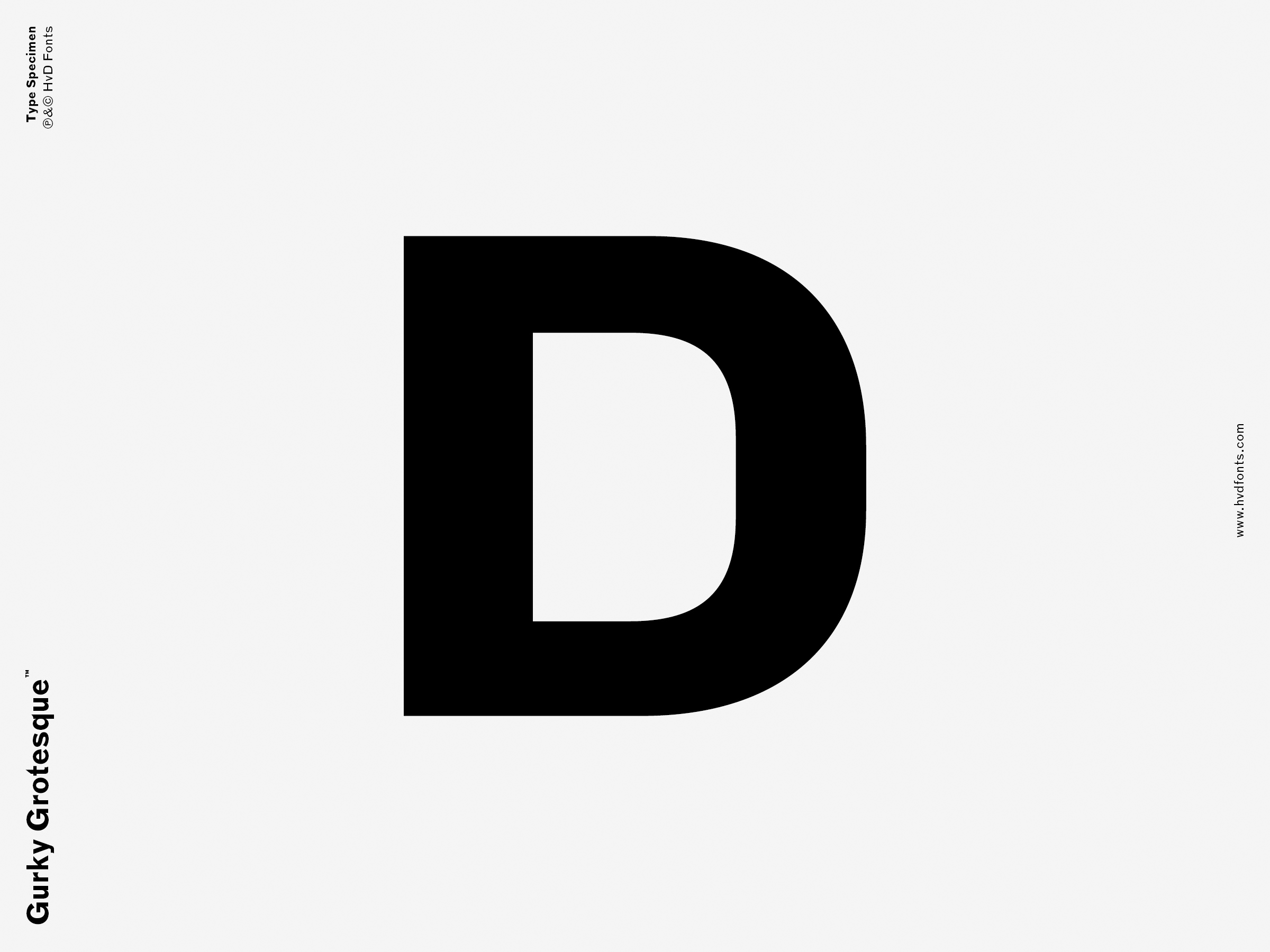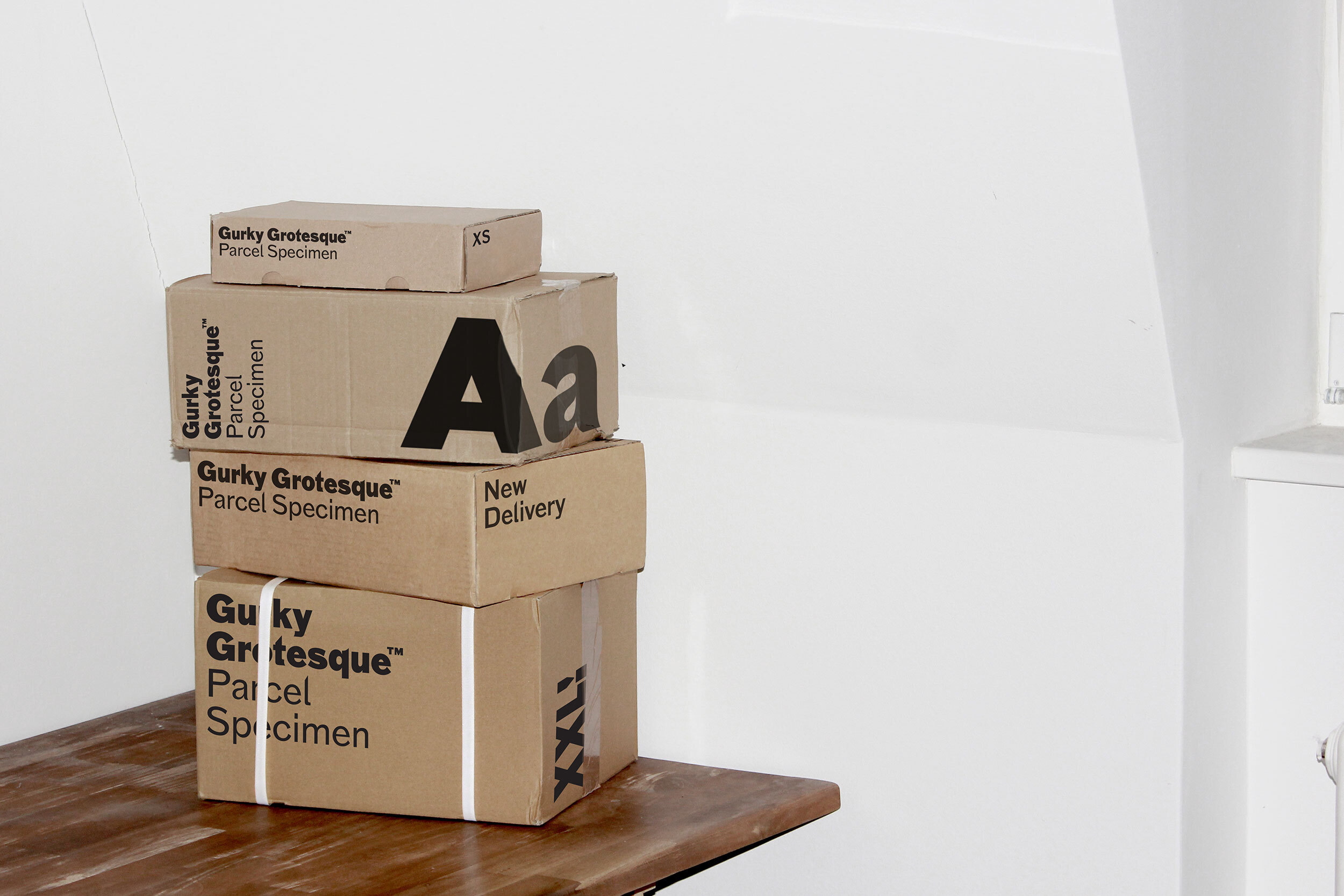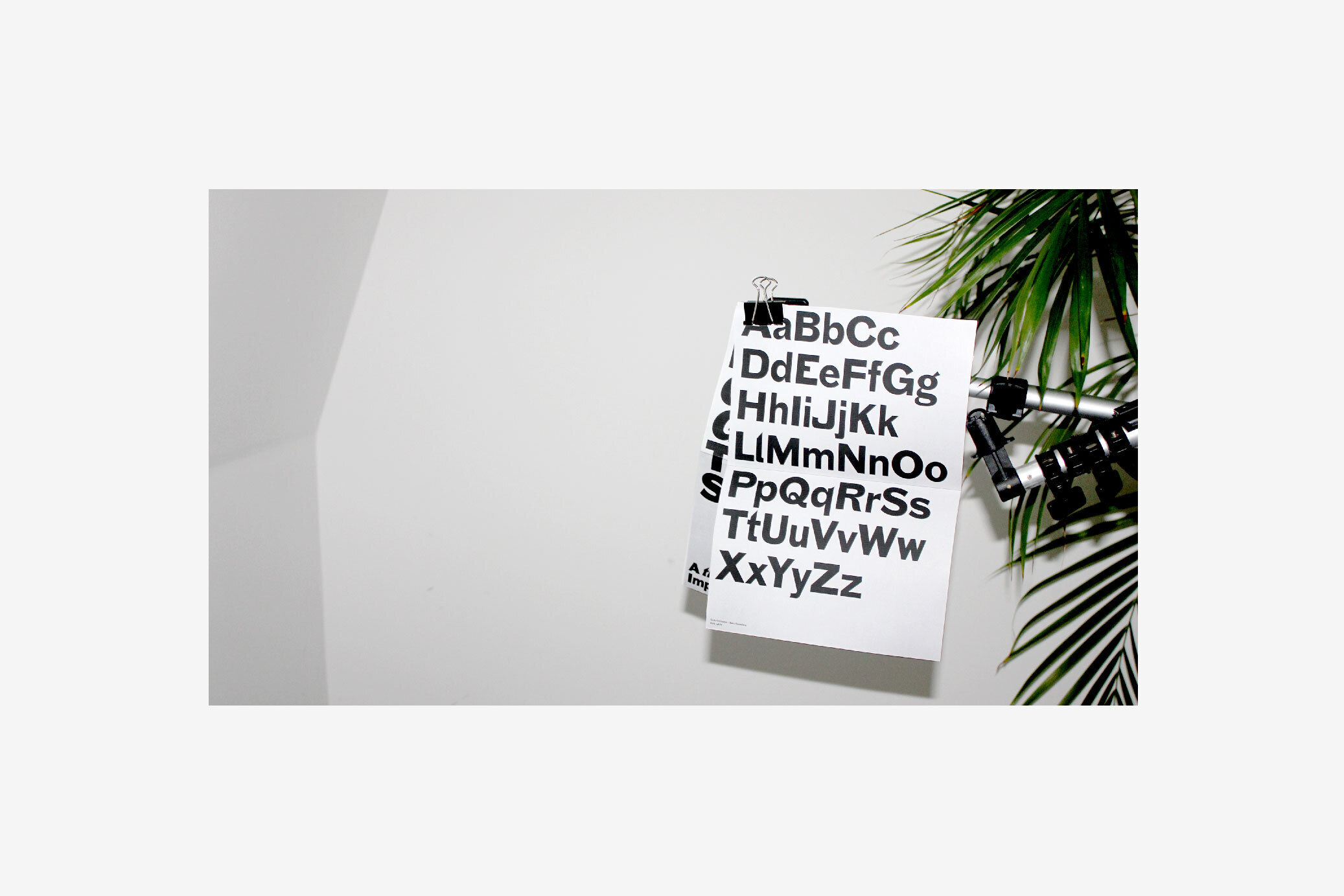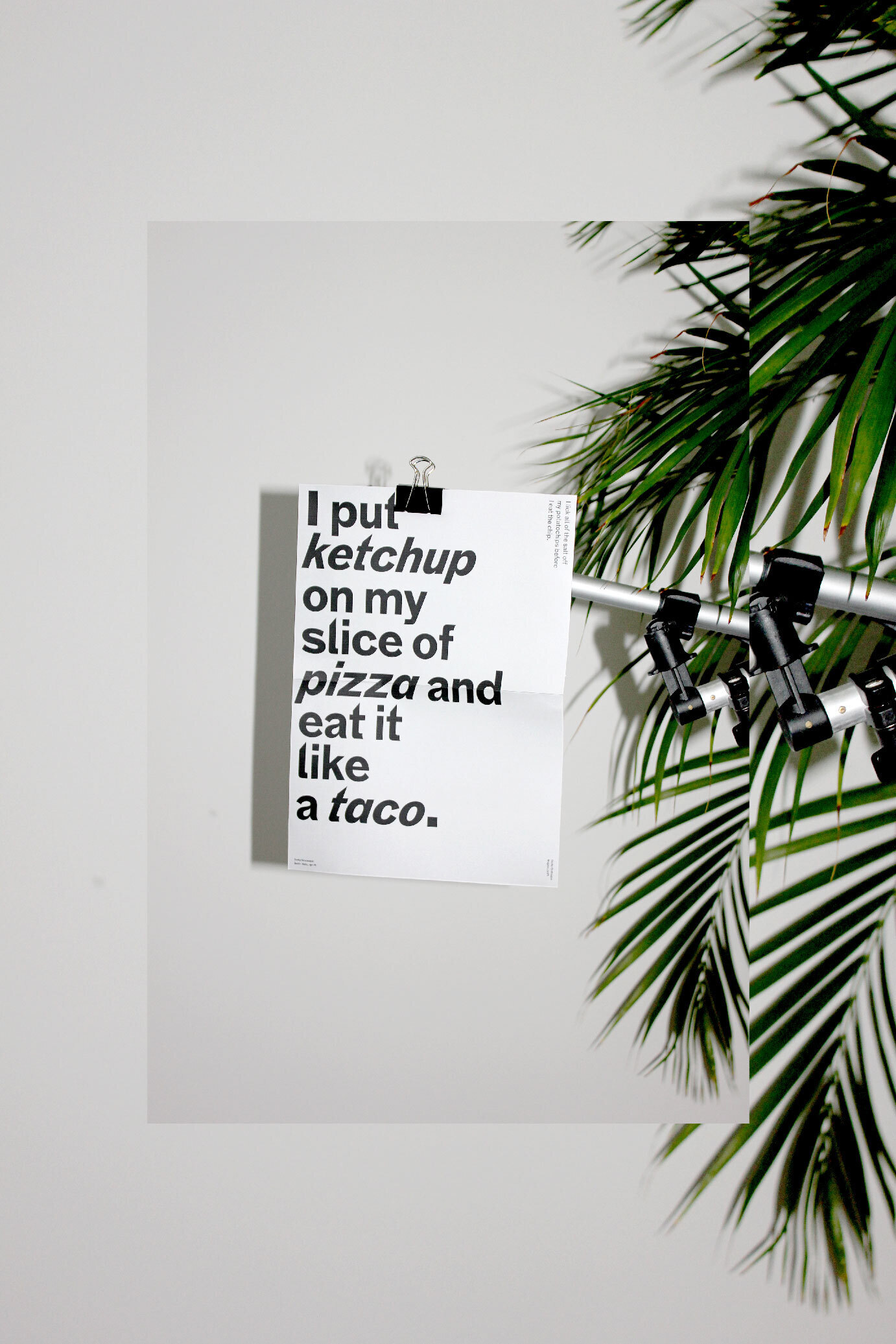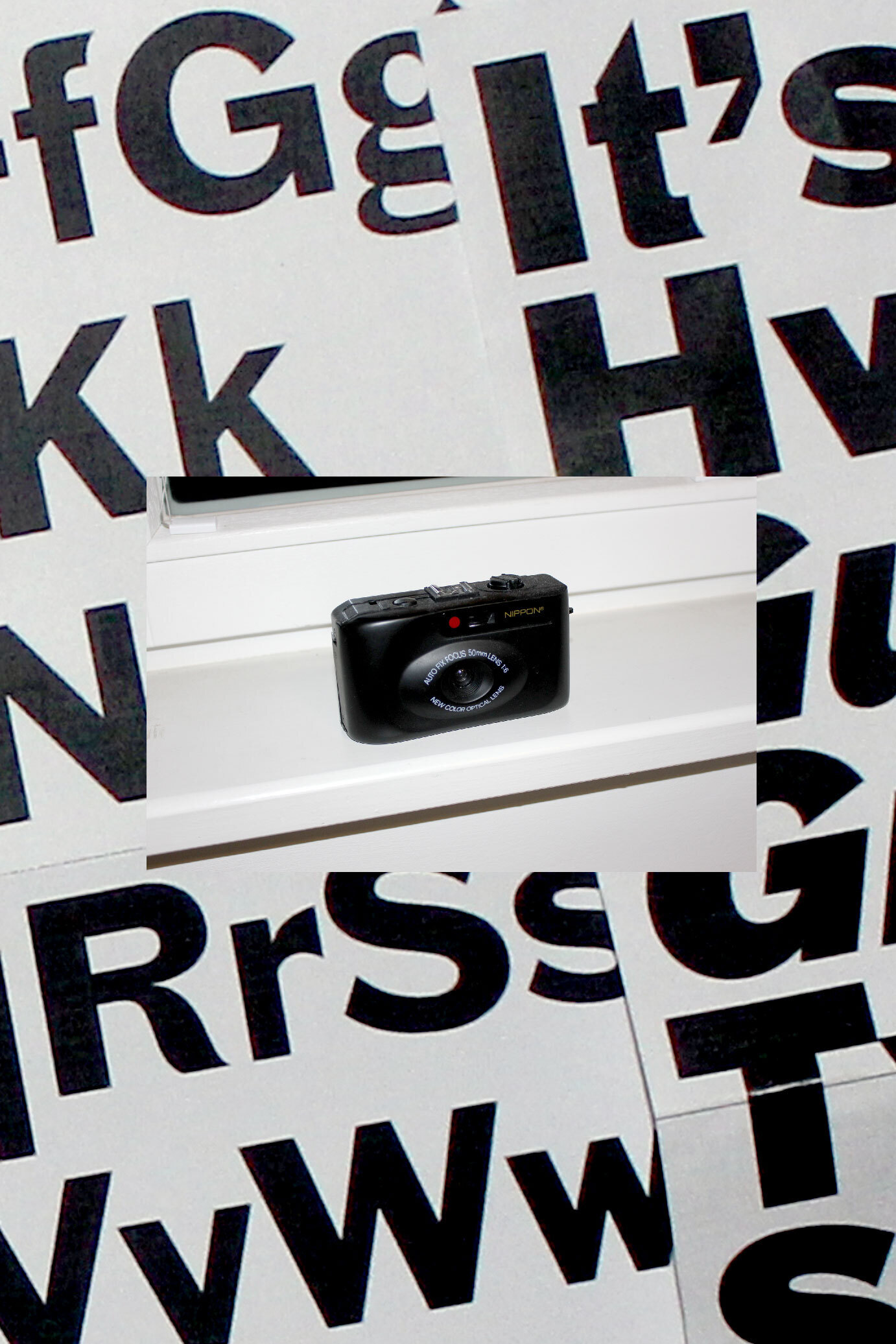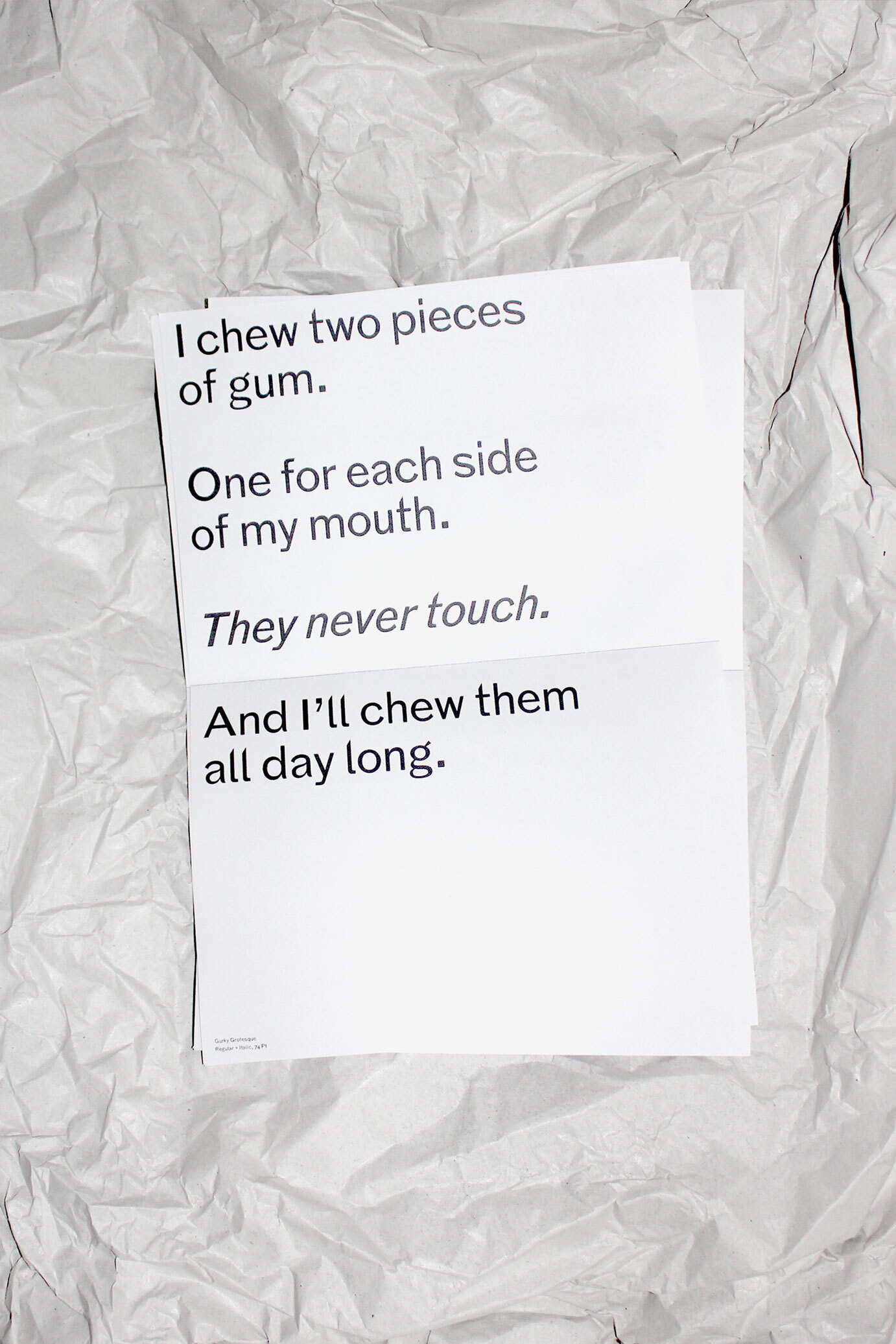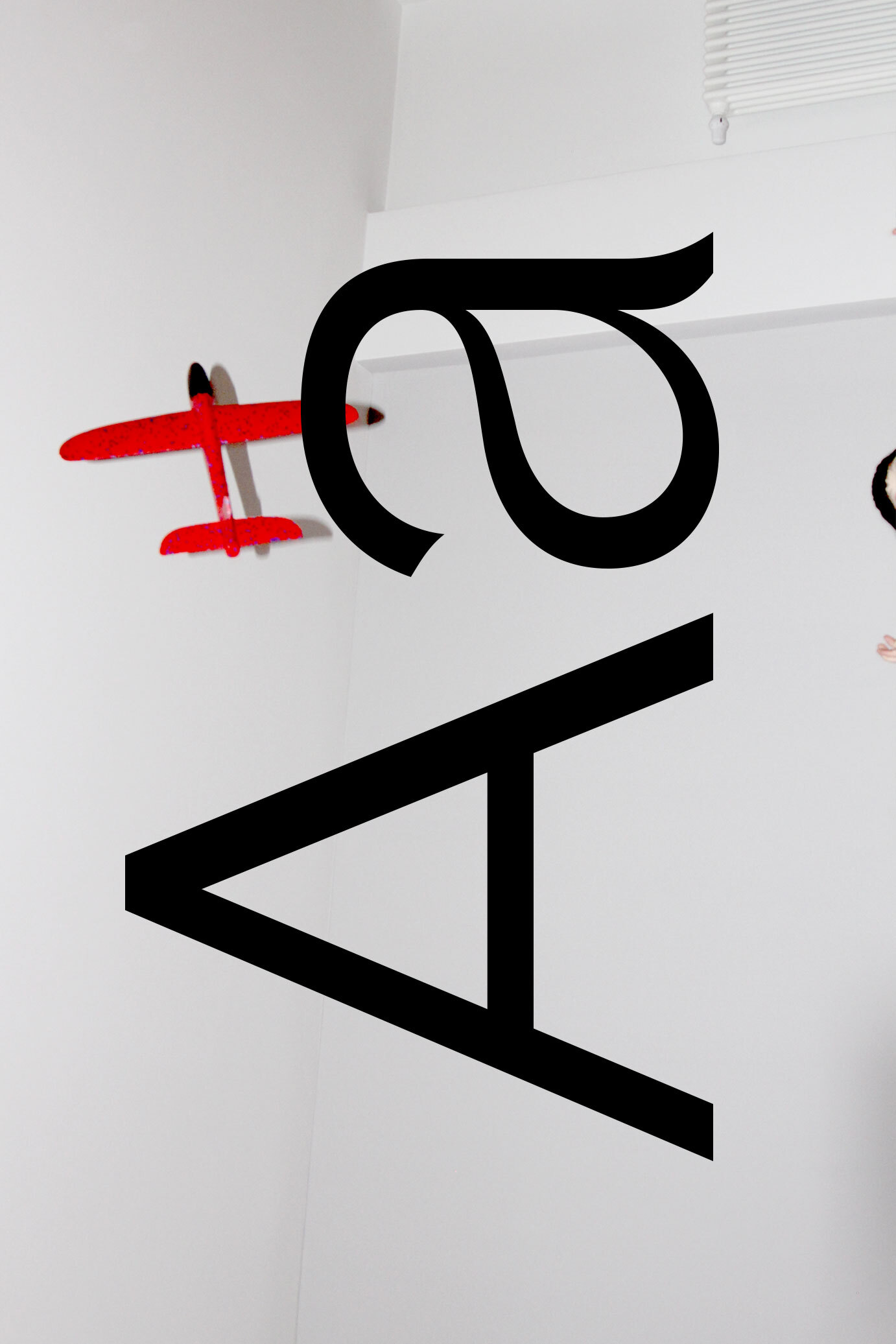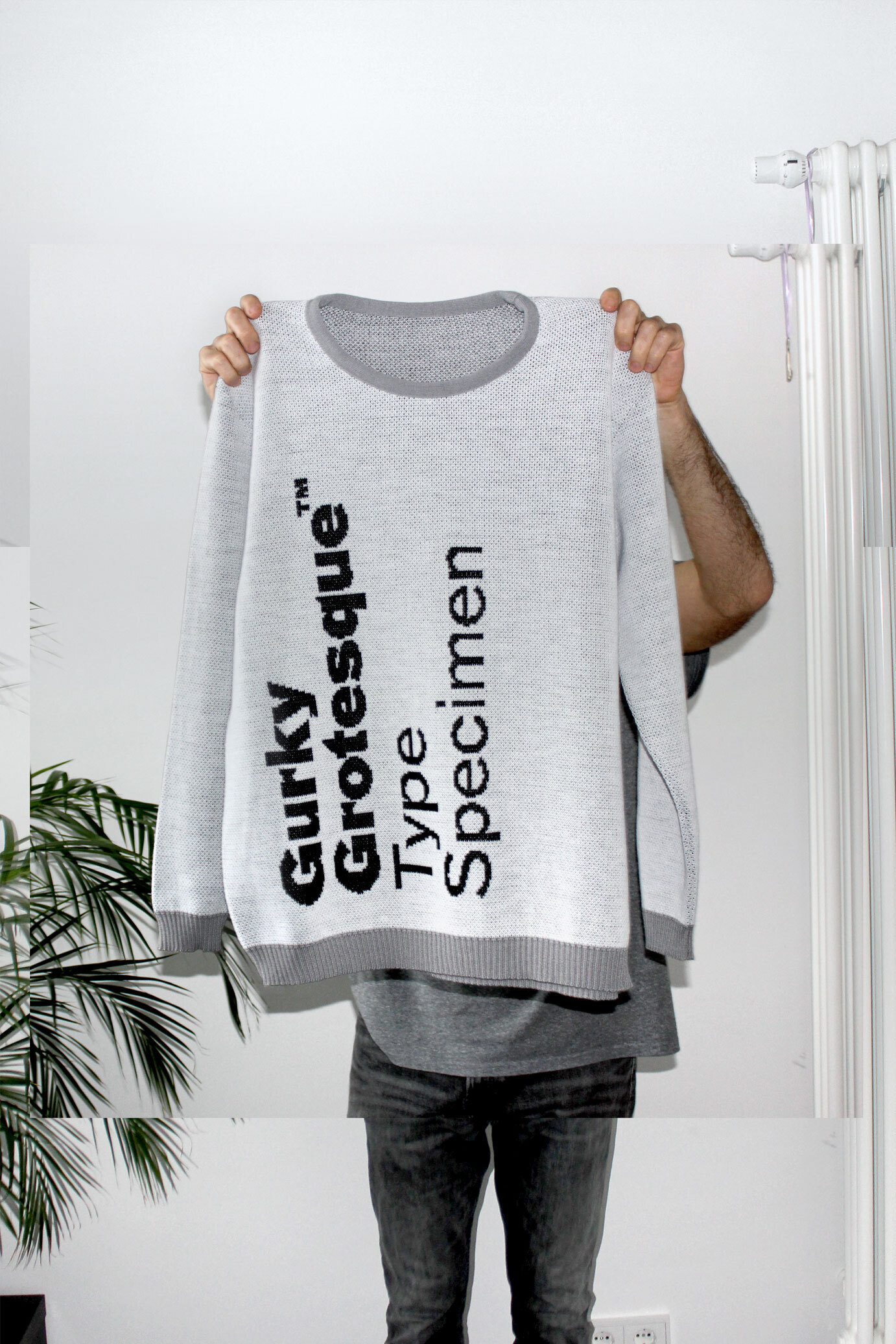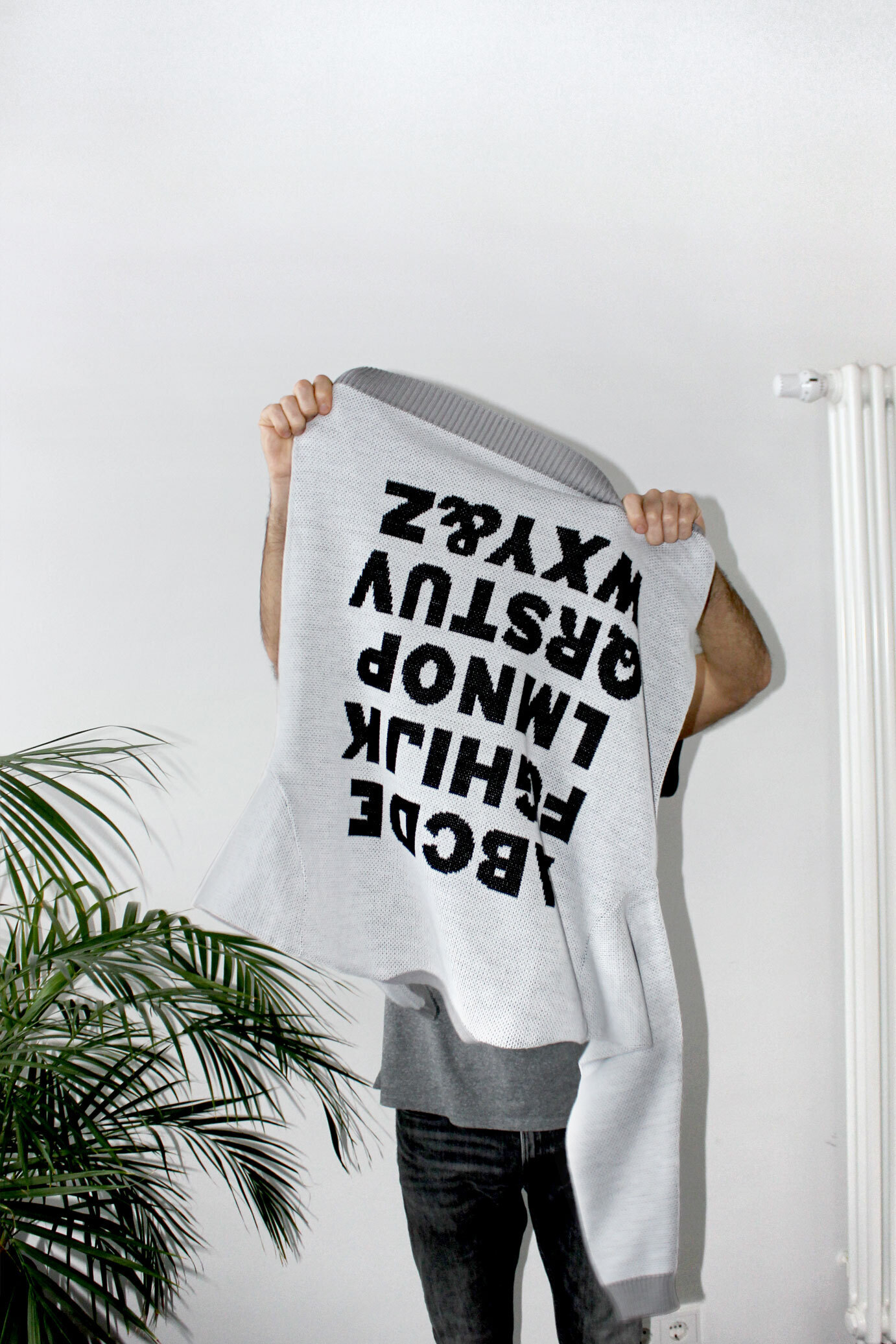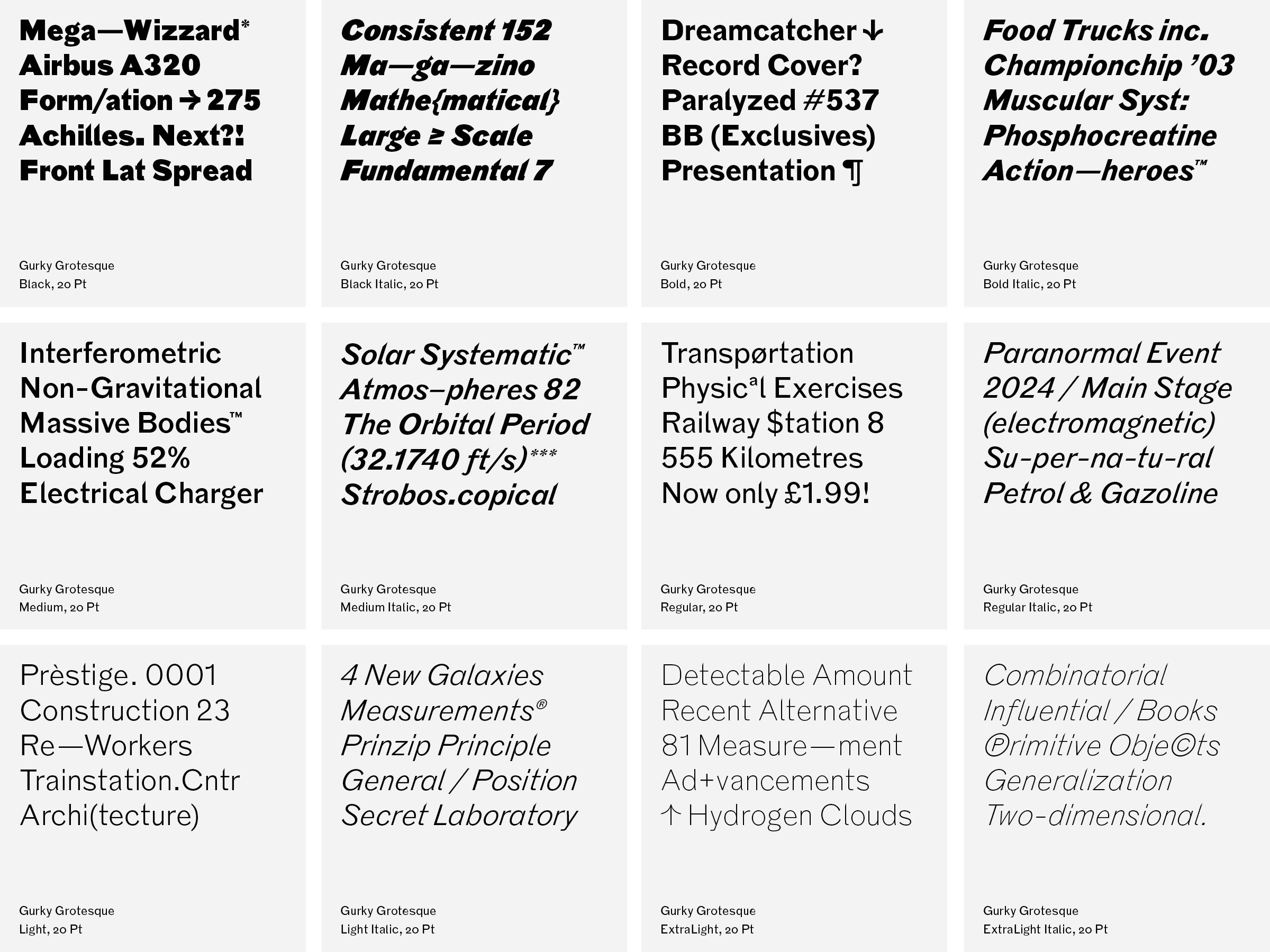
Gurky Grotesque
Gurky Grotesque: A tribute to imperfection.
Gurky Grotesque is a type family consisting of 12 fonts, ranging from ExtraLight to Black. It is reminiscent of old metal type, favoring quirky imperfections over smooth curves. We went on a search for character and unique solutions to bring back the charm of vernacular type and the appeal of imperfection. In contrast to big type systems without irregularities, Gurky Grotesque embraces its inconsistencies and its edginess. It comes with a comprehensive character set, modern OpenType features, and variable fonts.
Our latest most wanted Gurky original comes with a unique voice and some terrific details. Use it for your next corporate design, poster and whatever needs a strong typeface.
More choices, more emotions.
Always ready for the unexpected: Big bold and powerful. The stronger weights of Gurky Grotesque were made to create attention and keep your eyes glued to the letters and their details. The lighter weights can also perform for longer texts and info materials — not losing any of its character.
The 18° italic angle
In addition to the six uppercase weights Gurky Grotesque comes up with six fitting italics. A powerful 18° angle and tweaks like the one-eyed-a, the sloppy-marathon-s or the ultra-dynamic-goggles-g are giving an even more energetic tonality to the type family.